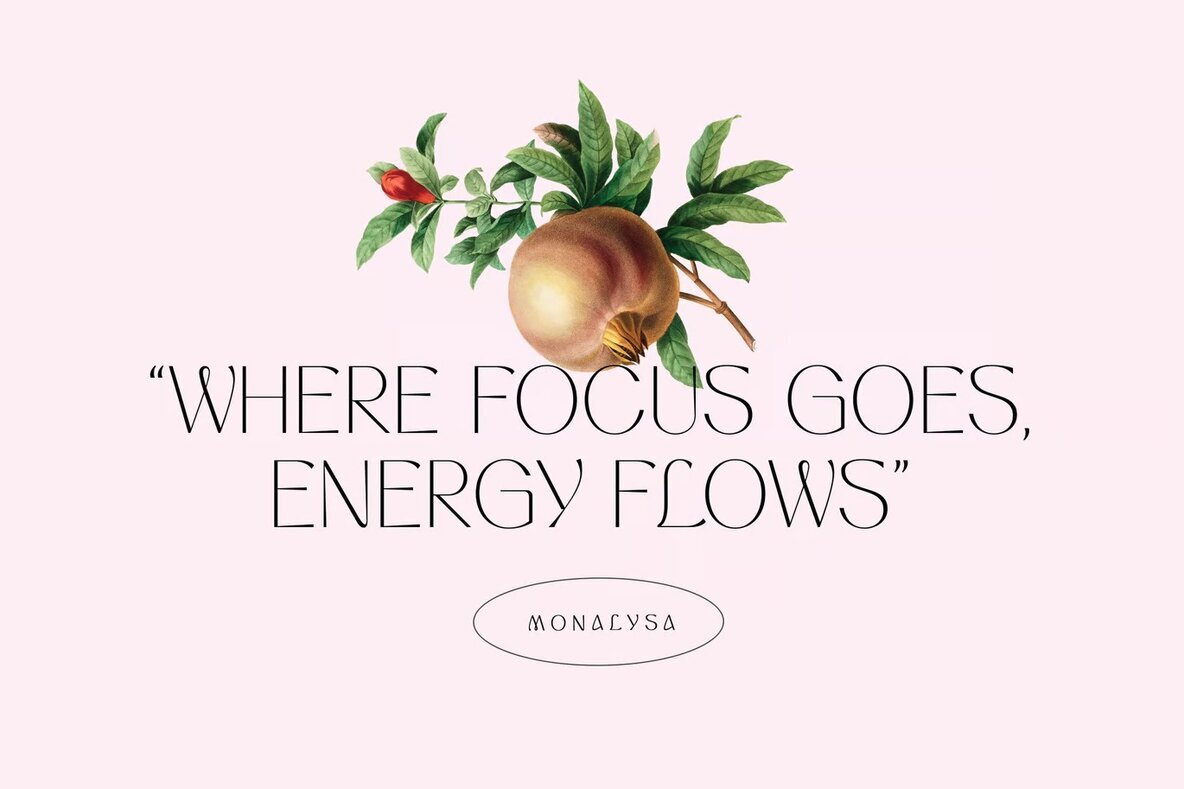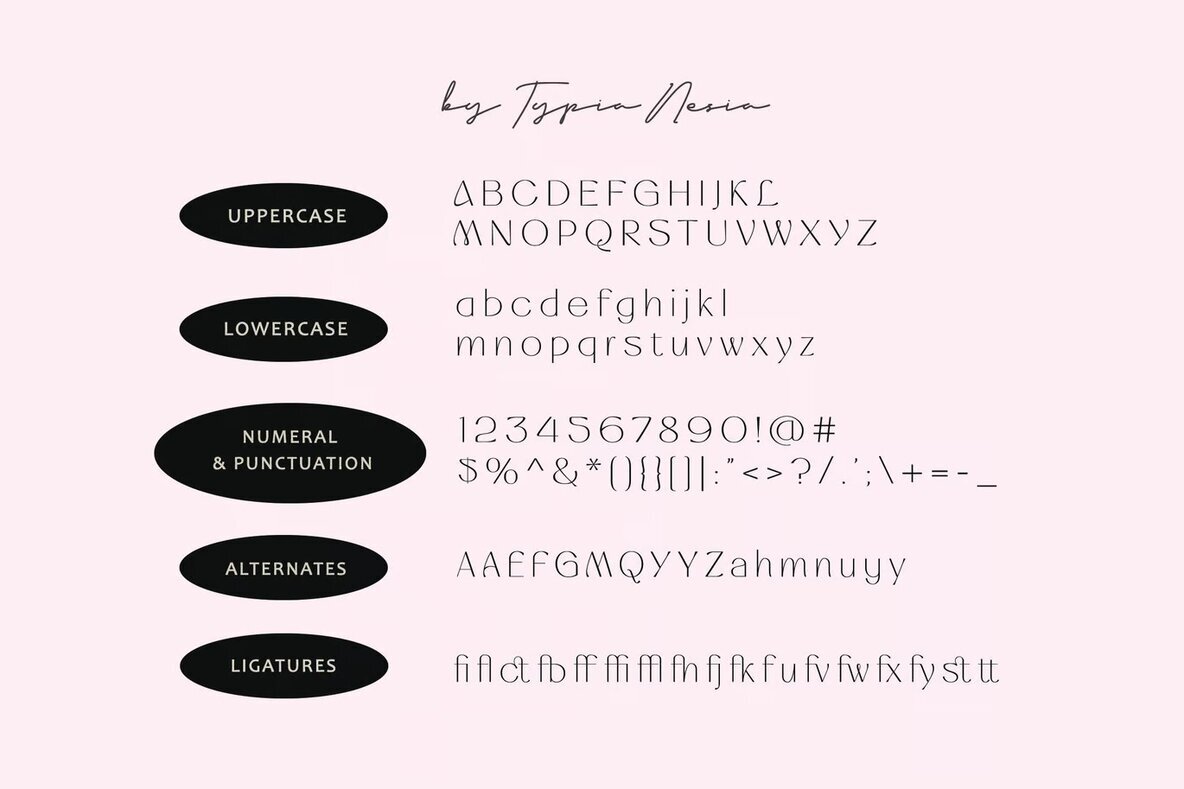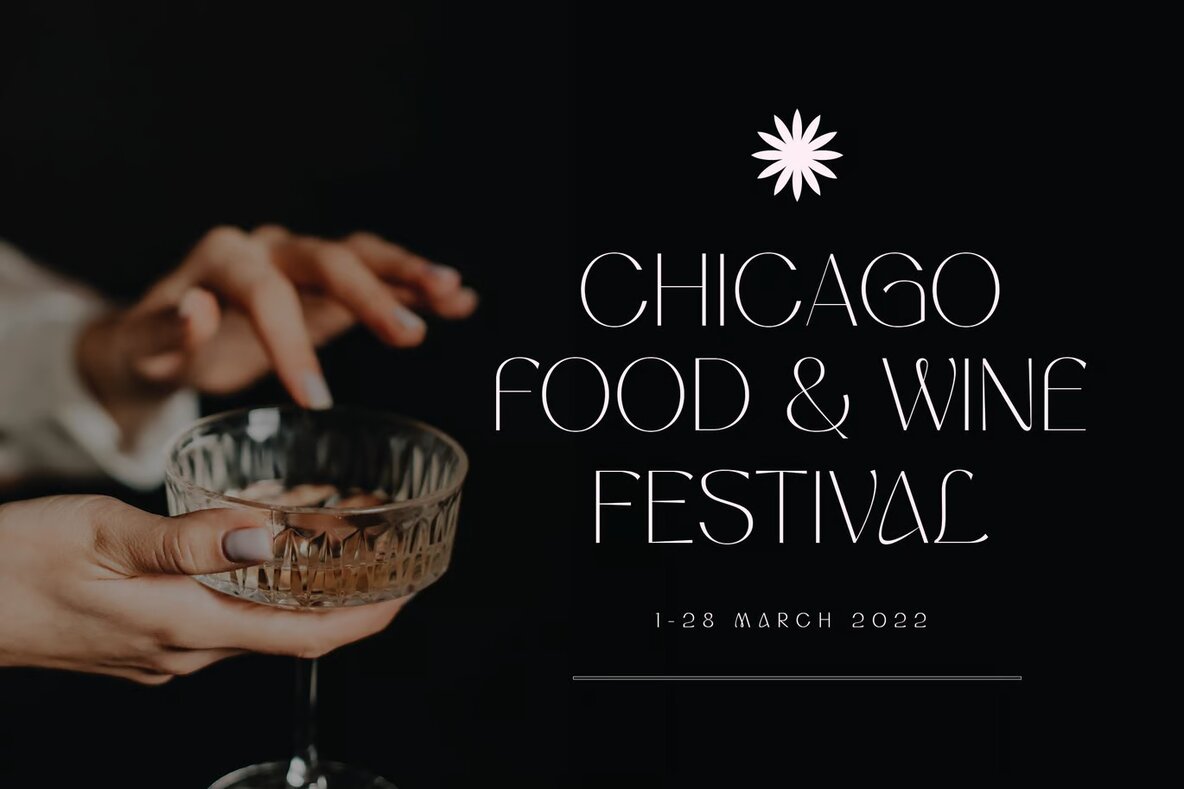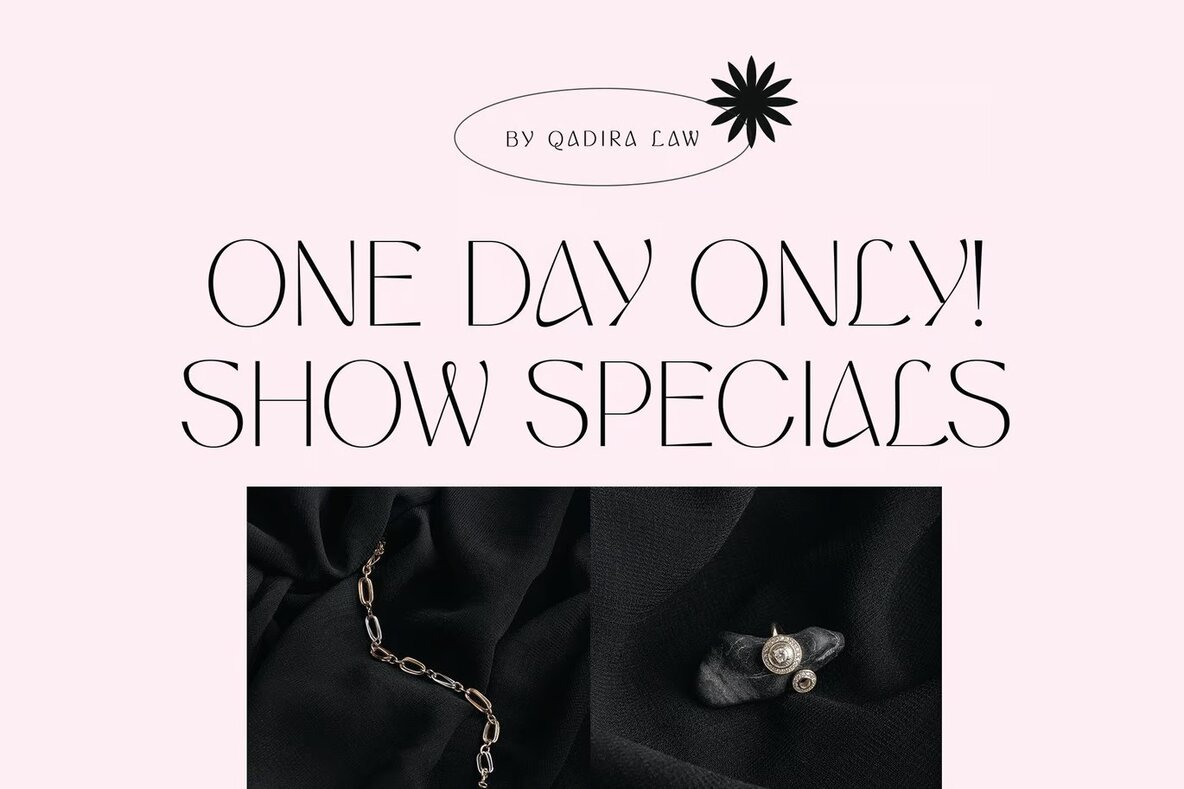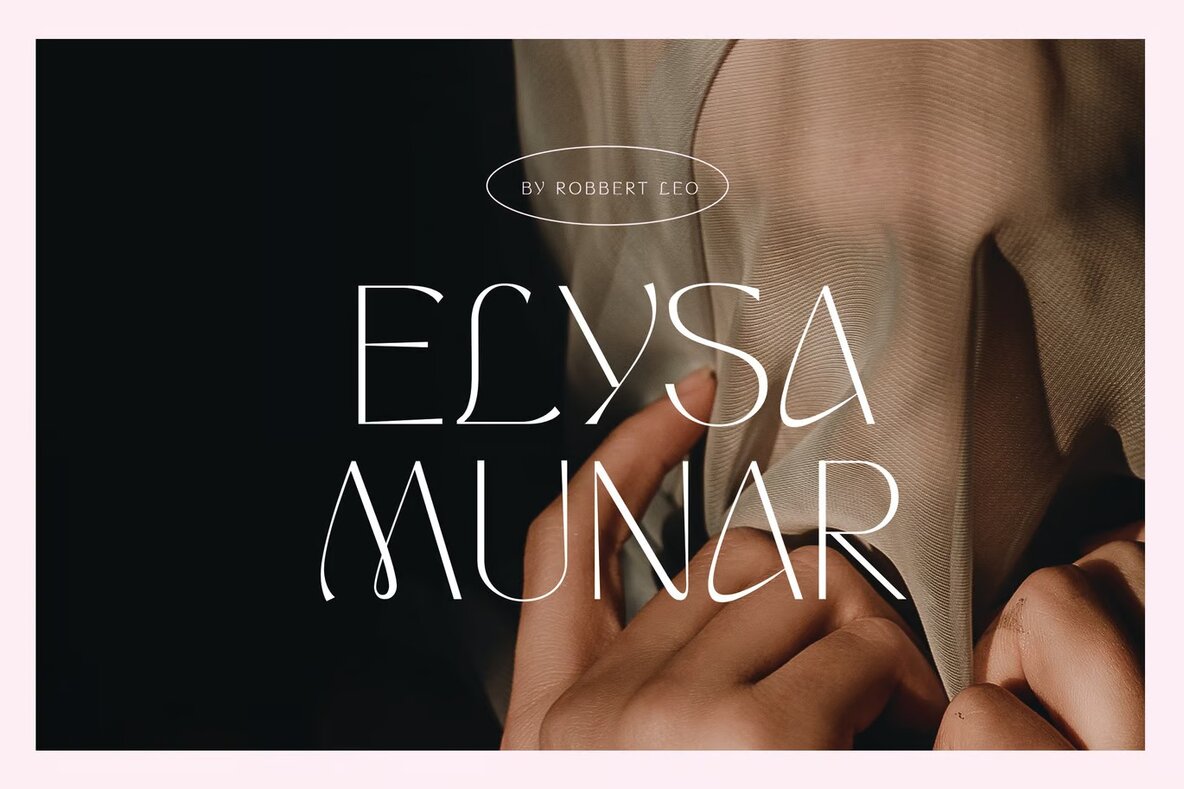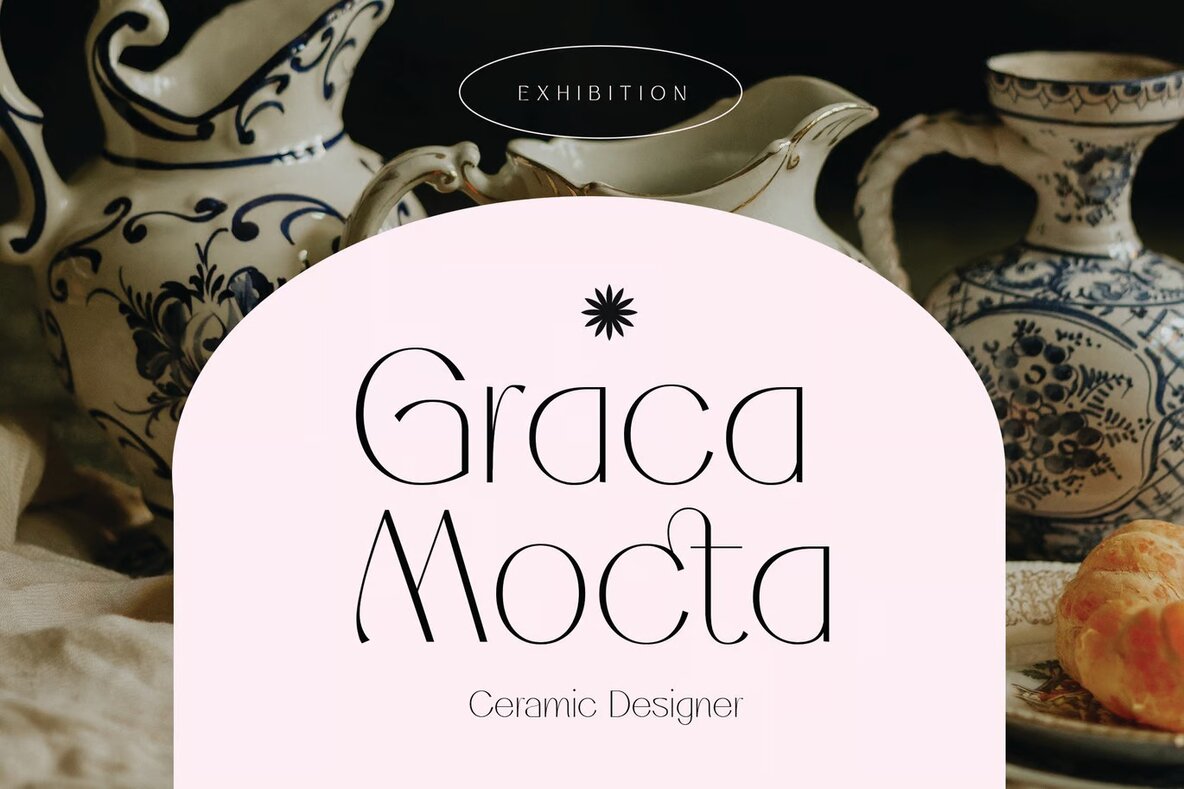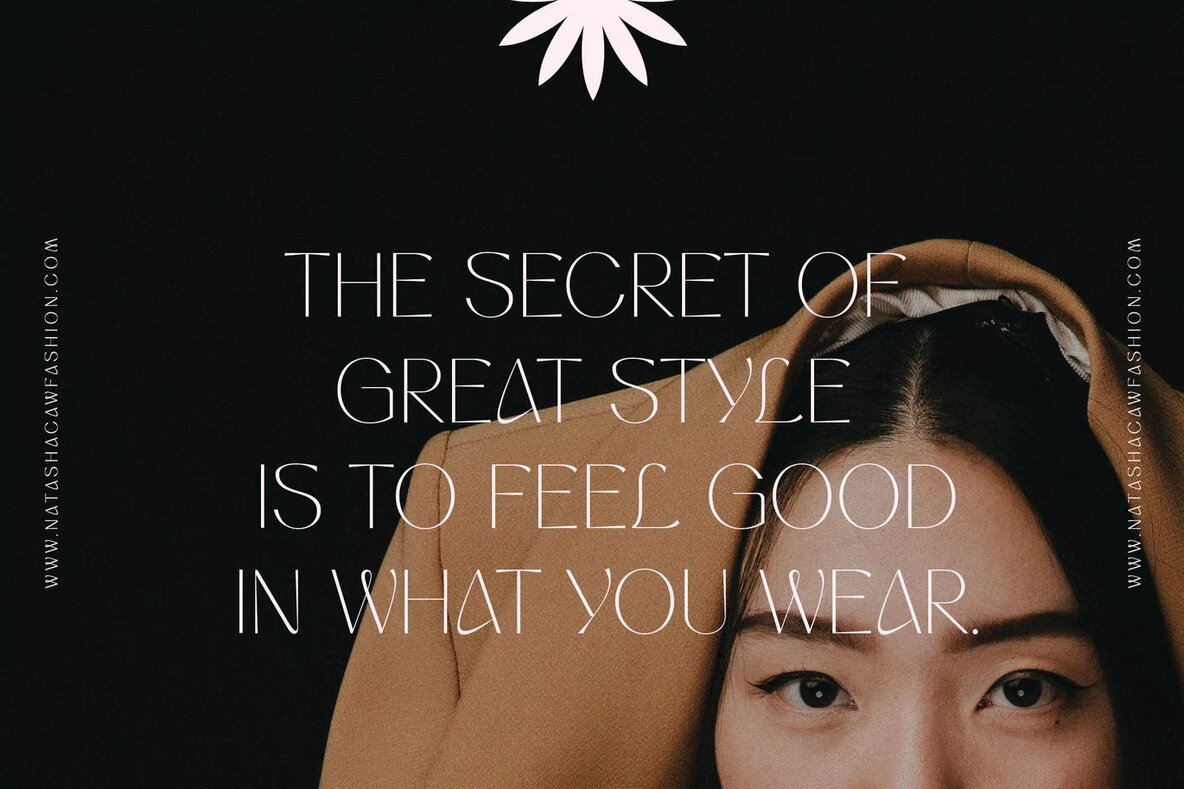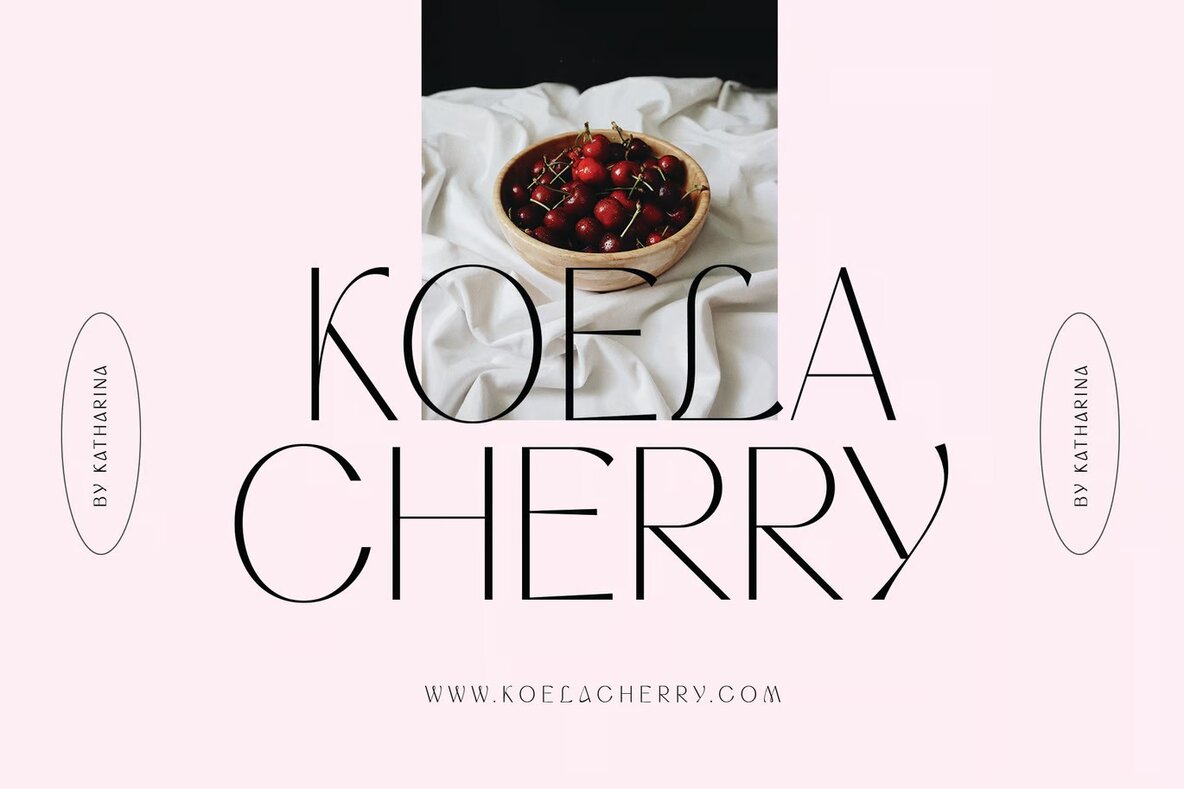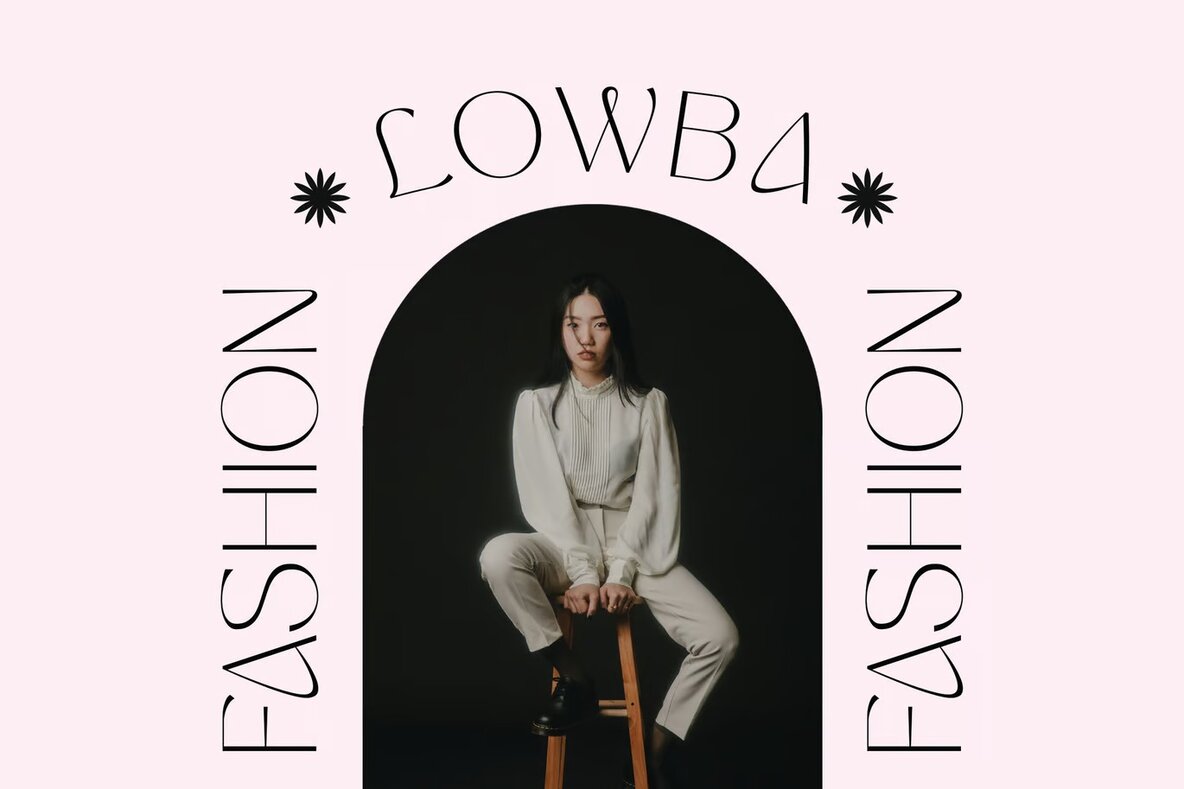
Monalysa Font
Monalysa Regular
Monalysa is a modern display sans serif font, designed to add a touch of elegance to your projects. Its unique style is ideal for creating luxury logos, sophisticated branding, and classy editorial layouts. Whether you're working on a women-focused magazine, a high-end cosmetic brand, or fashion promotions, Monalysa brings a refined aesthetic to any design task. The font's versatility makes it suitable for art gallery or museum branding, boutique and stationery design, as well as a range of modern advertising applications.
Perfect for a variety of creative endeavors, Monalysa is an excellent choice for card invitations, art quotes, home décor, or even book and cover titles. It complements special event materials with its refined yet contemporary look, making it a go-to option for designers aiming to craft thematic visual identity. With Monalysa, your projects will not only convey a premium feel but also maintain clarity and readability, ensuring effective communication across various design platforms.